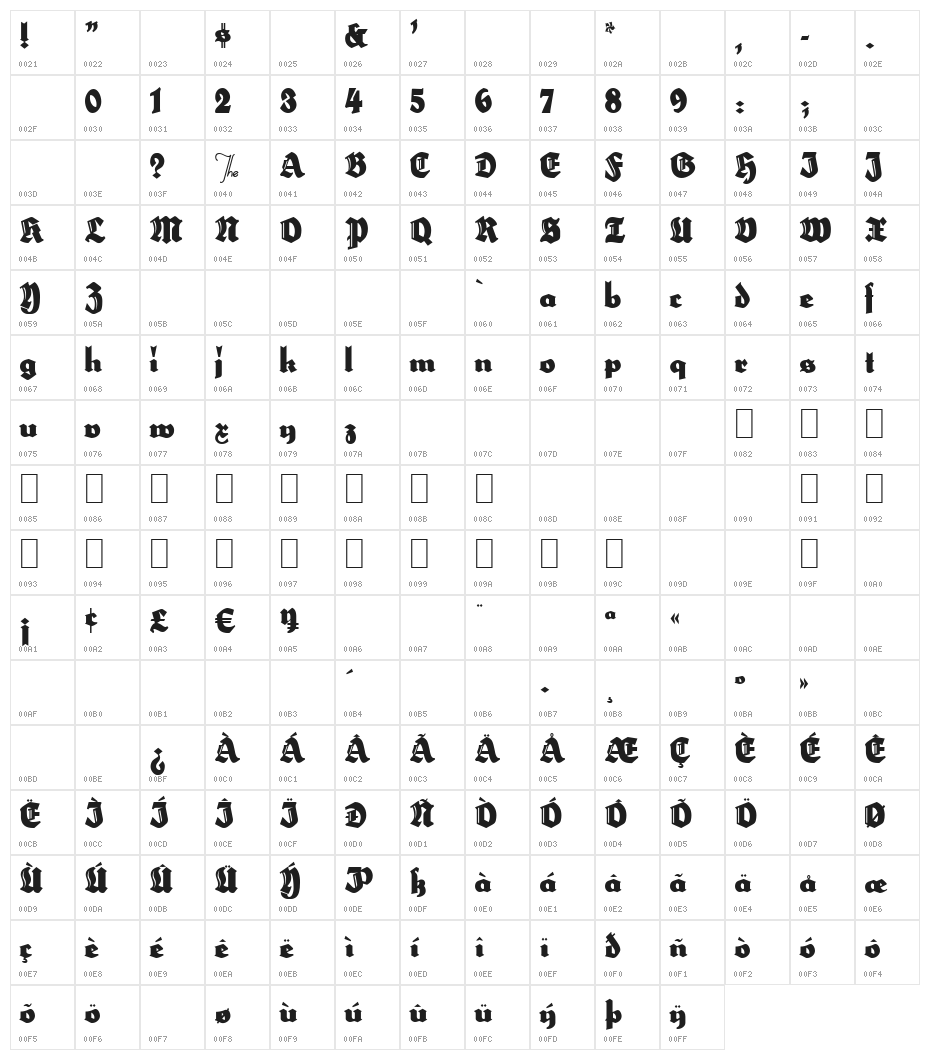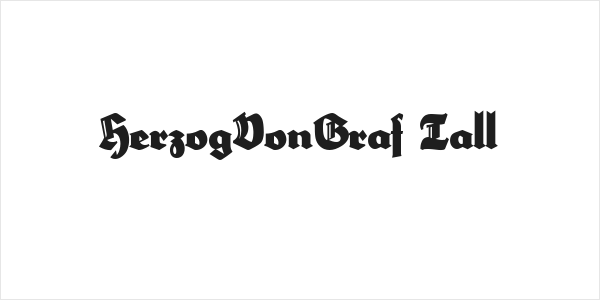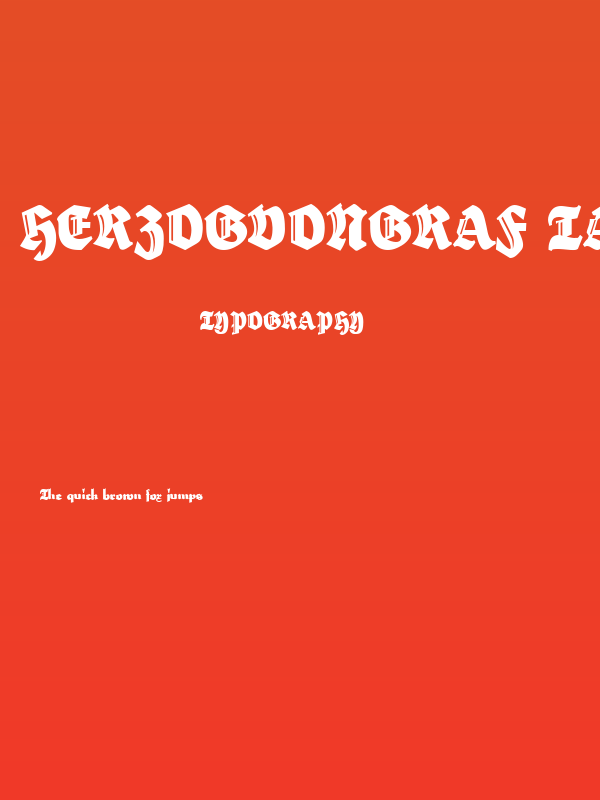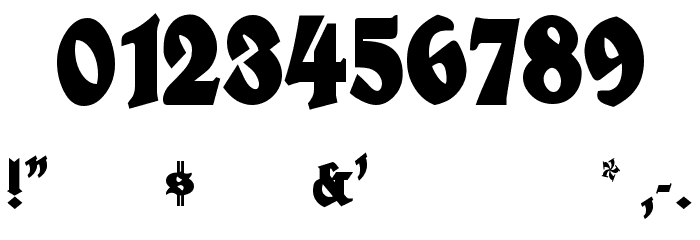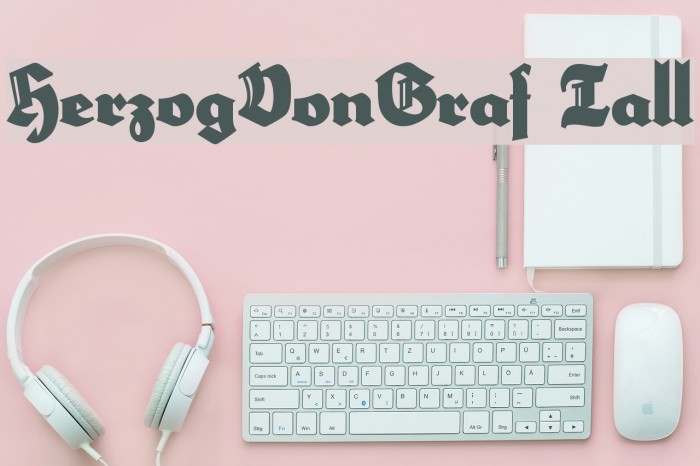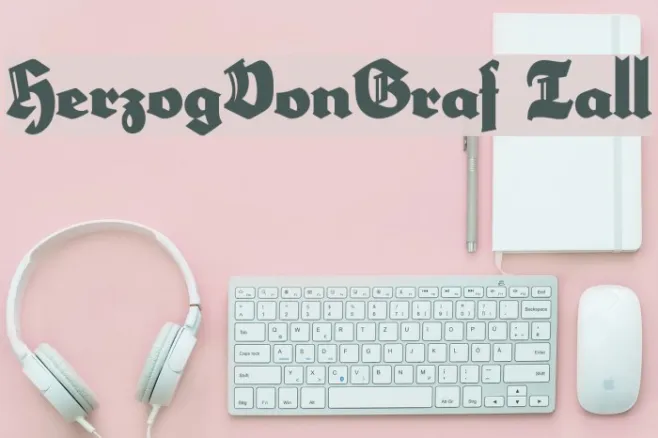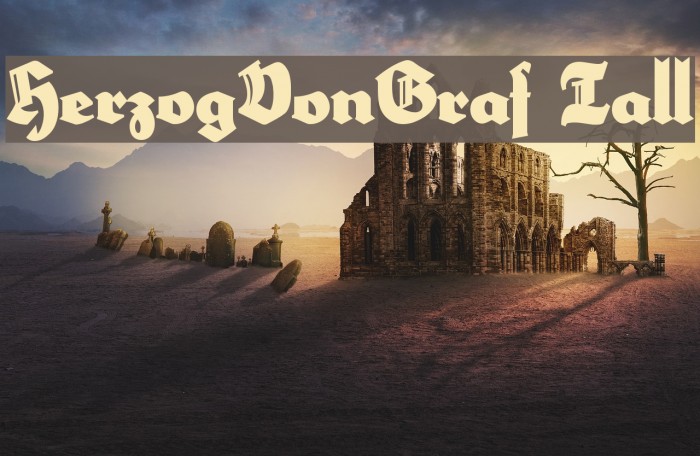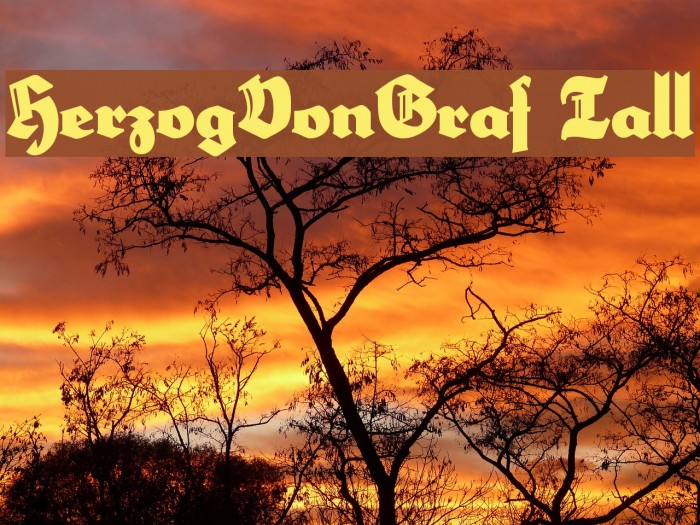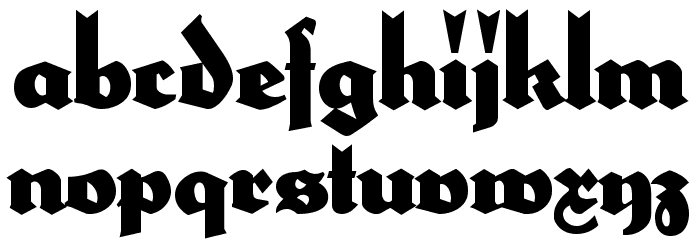
HerzogVonGraf Tall Font
HerzogVonGraf Tall Description
This font exhibits a bold and striking blackletter style, characterized by its sharp, angular lines and intricate details. The uppercase letters are particularly ornate, with dramatic flourishes and a medieval aesthetic. The lowercase letters maintain the same gothic influence, offering a cohesive look throughout the typeface. Numbers and special characters are designed with the same attention to detail, ensuring consistency across all elements. This font's historical and decorative nature makes it stand out, capturing the essence of traditional calligraphy with a modern twist.
| Use Case | Logos, Headlines, Posters |
| Proposed Projects | Ideal for projects requiring a historical or gothic touch, such as book covers, posters, or themed event invitations. |